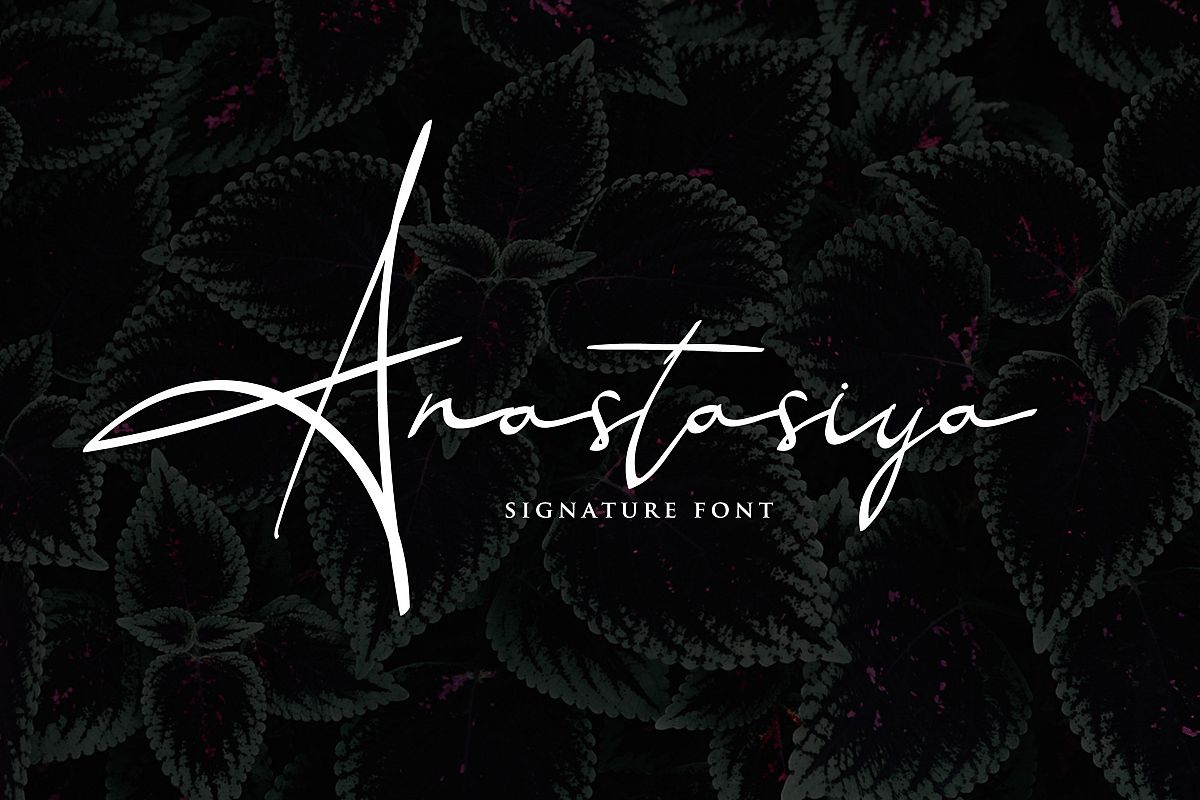
Anastasiya Elegant Signature Font
Anastasiya is modern script that perfect for photography,
signature, branding.
It is so beautiful and classy, simple but strong.